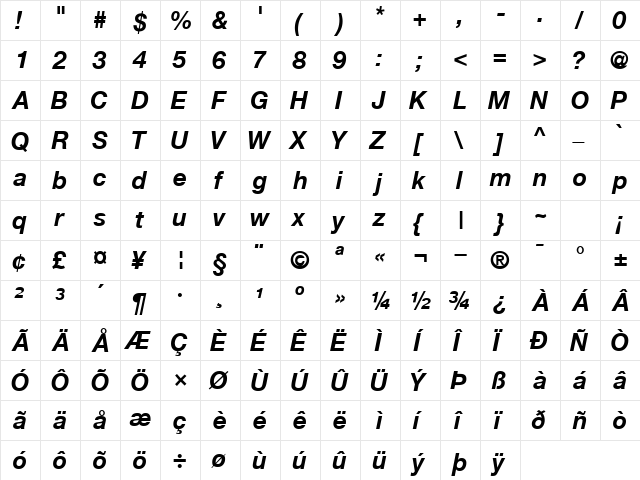
ContextRepriseSSK BoldItalic Font Preview
Design Context for ContextRepriseSSK Typeface
ContextRepriseSSK takes a measured approach to typography — its balanced proportions and neutral character make it a reliable workhorse for both digital and print work. The slanted form adds forward momentum and visual energy. Its bold stroke weight gives it real presence on the page.
Pro Tip: Try ContextRepriseSSK for annotation and caption copy alongside an upright companion — the contrast in angle creates a dynamic but ordered typographic system.